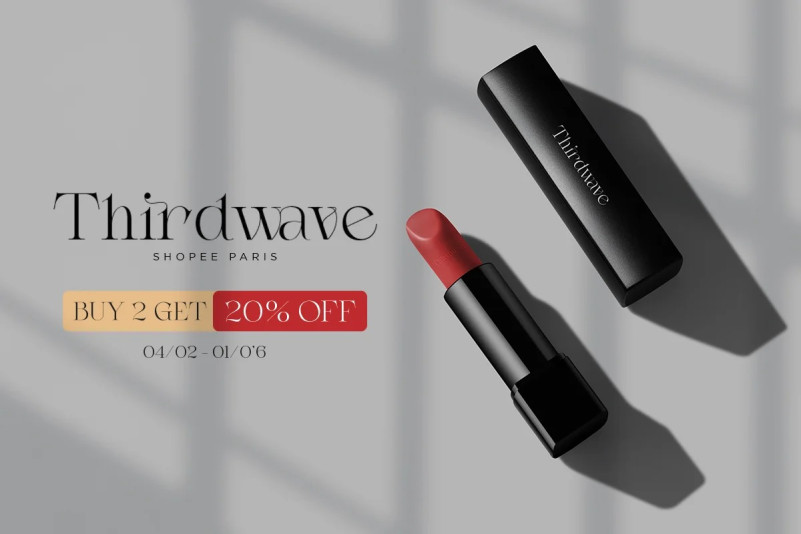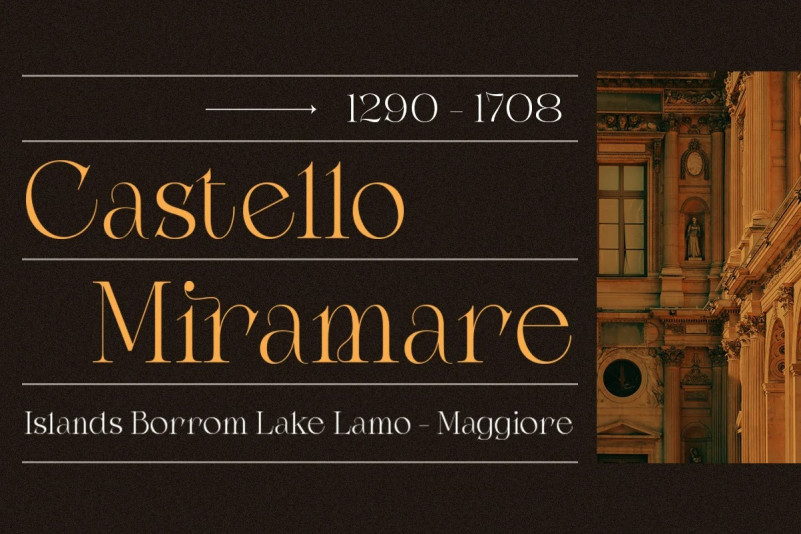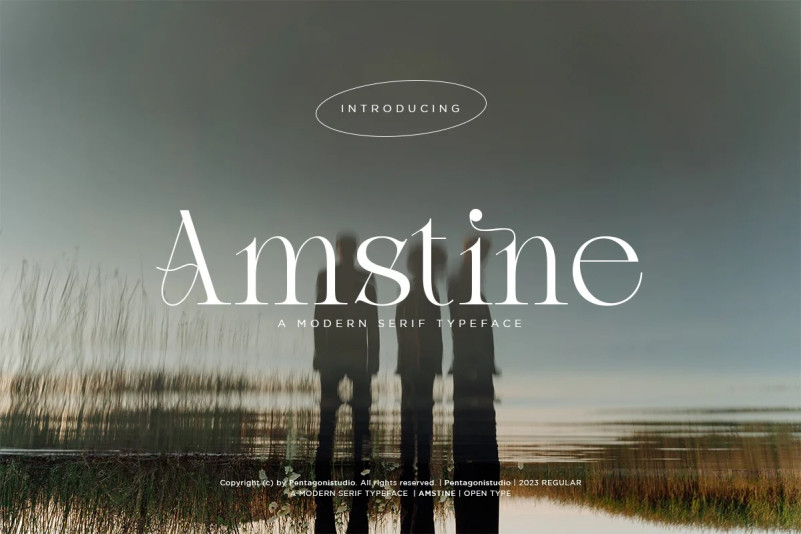
Amstine Font
Looking for a unique, stylish, and fun font for your next project? Introducing Amstine Serif Font, is a modern serif typeface inspired by fashion and elegance.  Perfectly fit for branding, logo, wedding things, greeting cards, fashion, lookbook, marketing promotion, anytime you want to look fancy elegant but still casual.